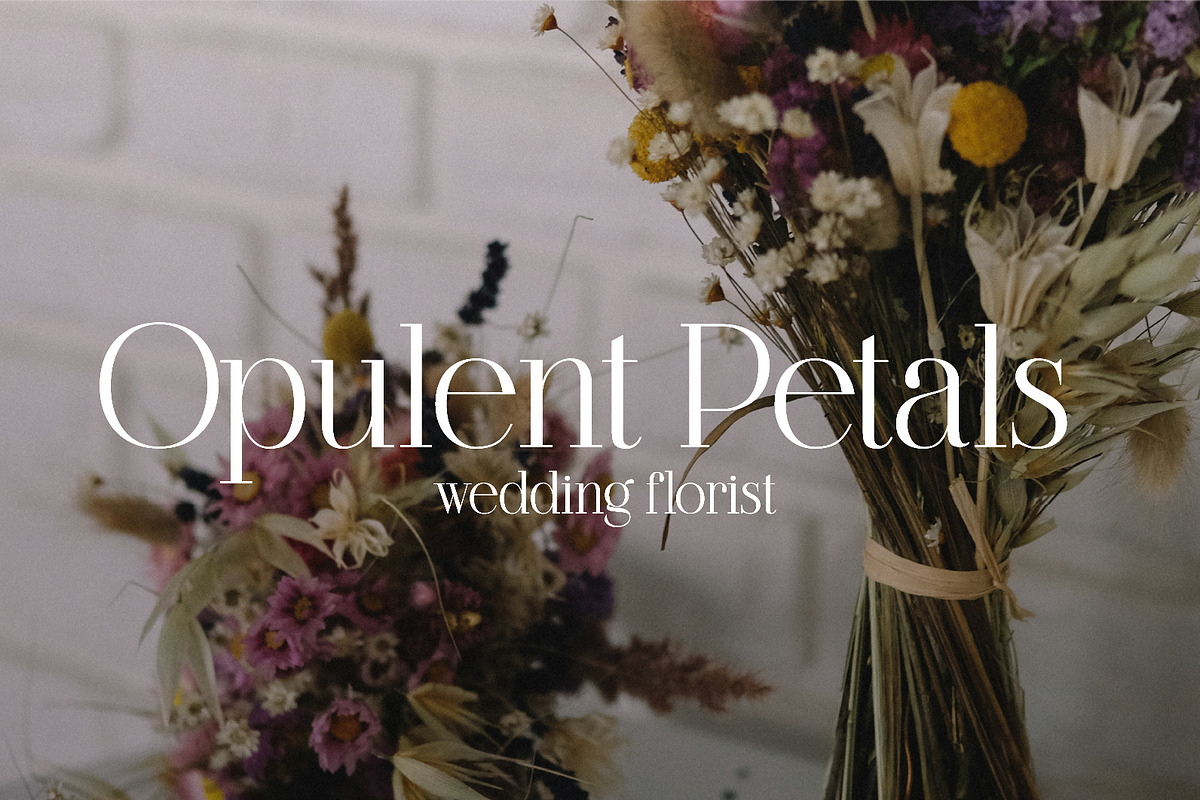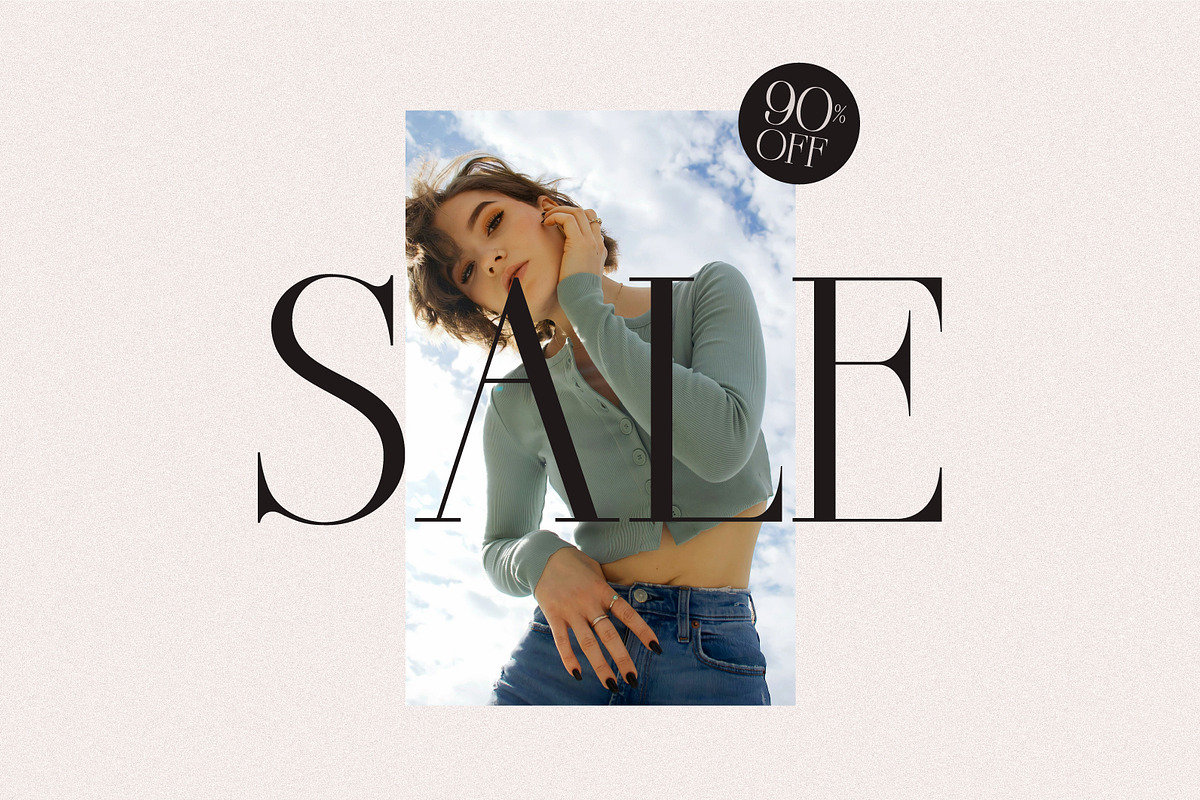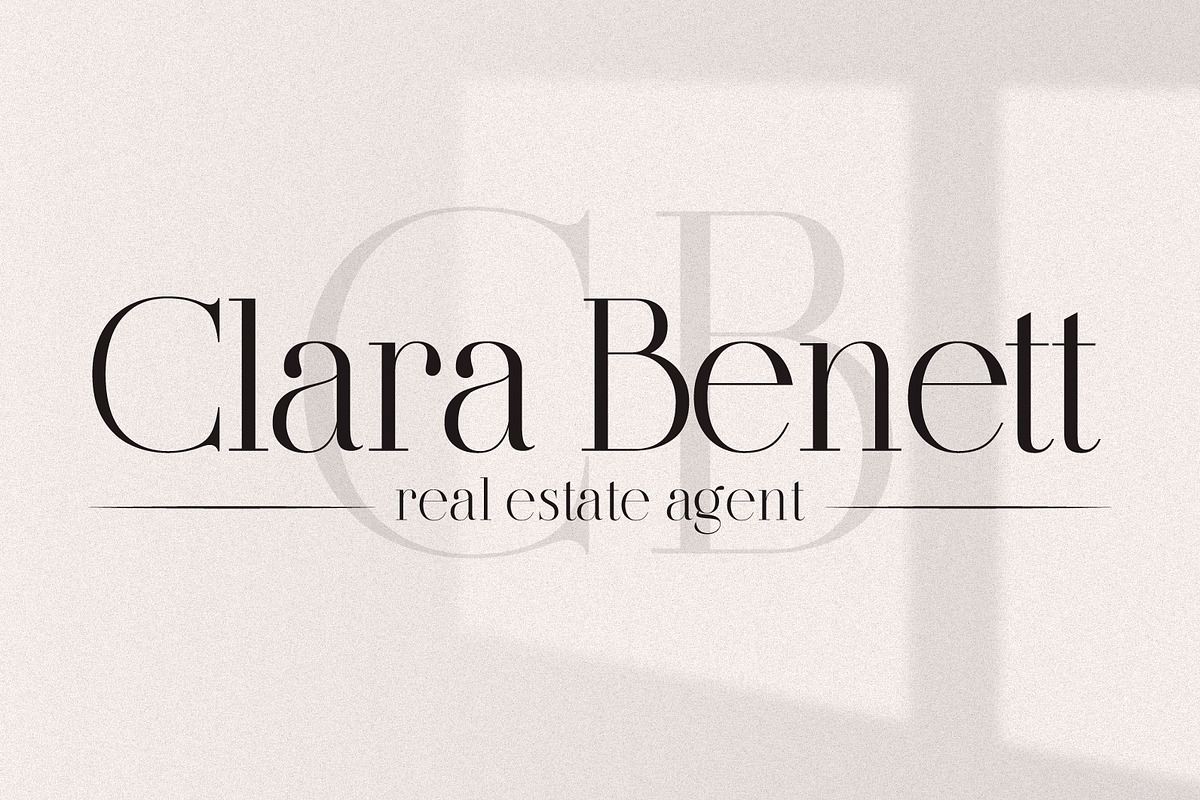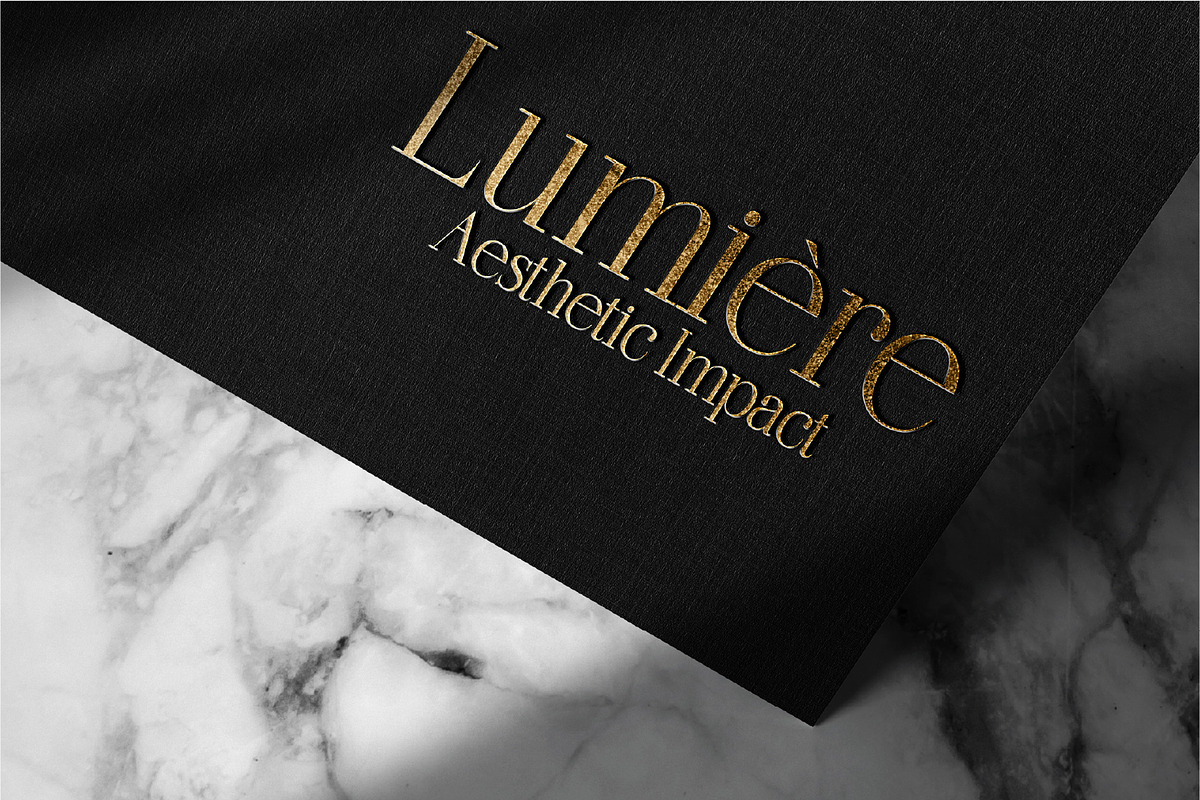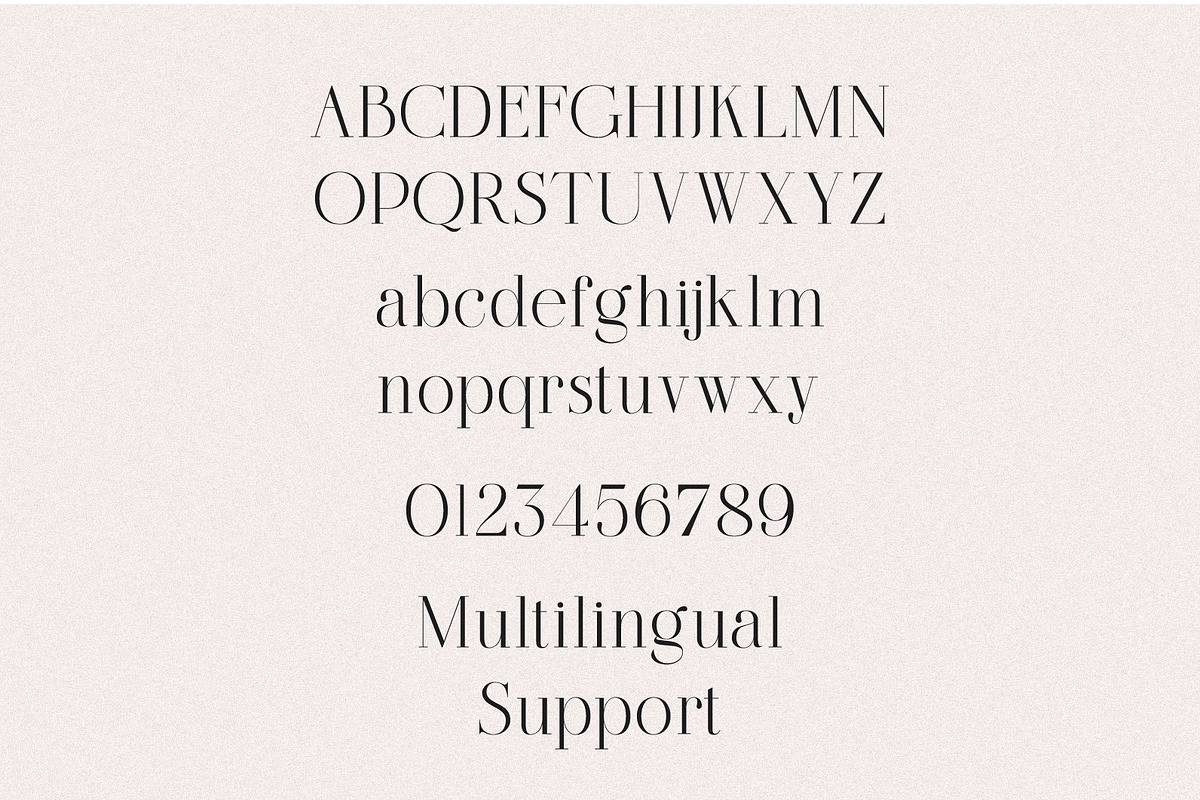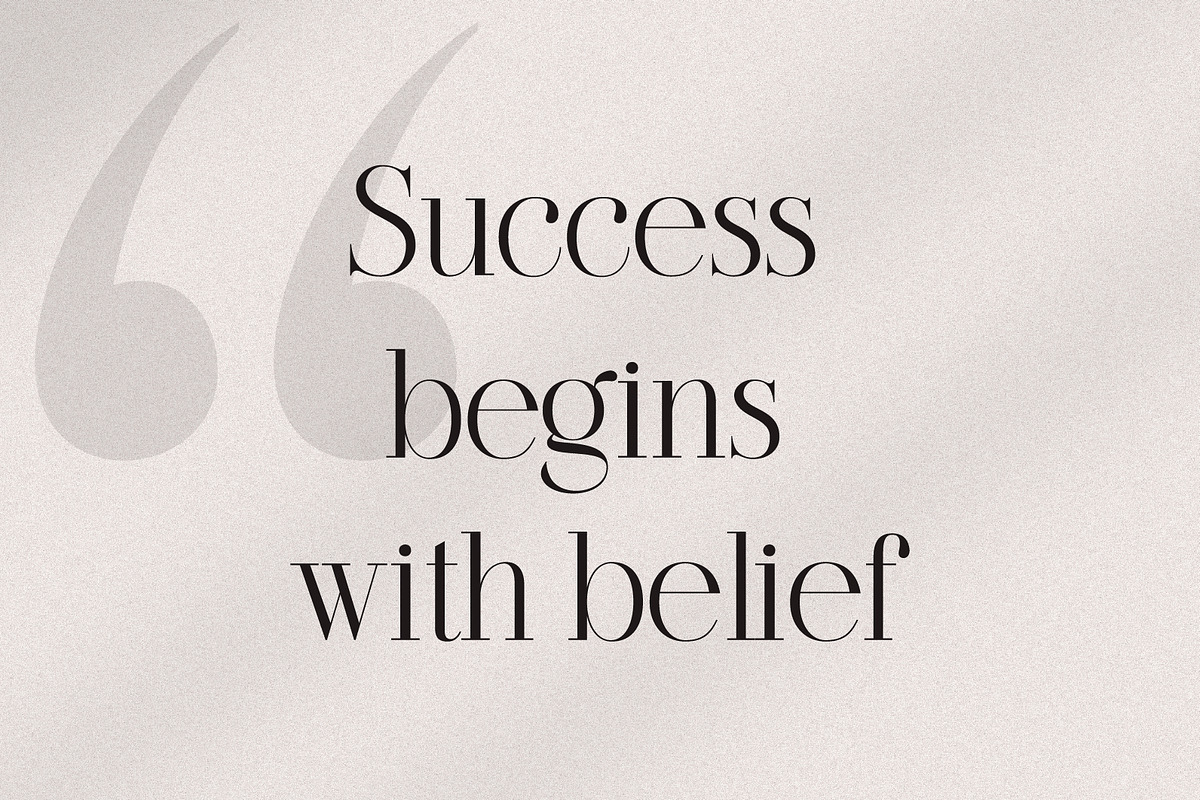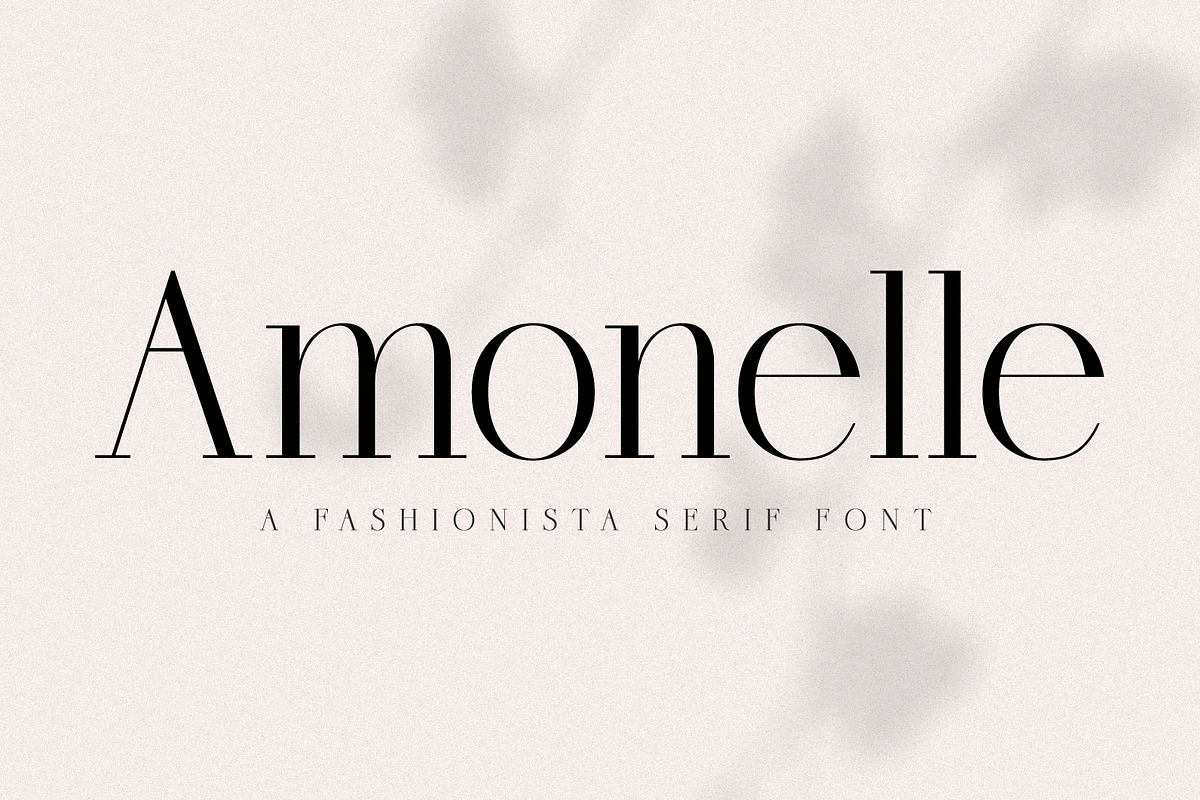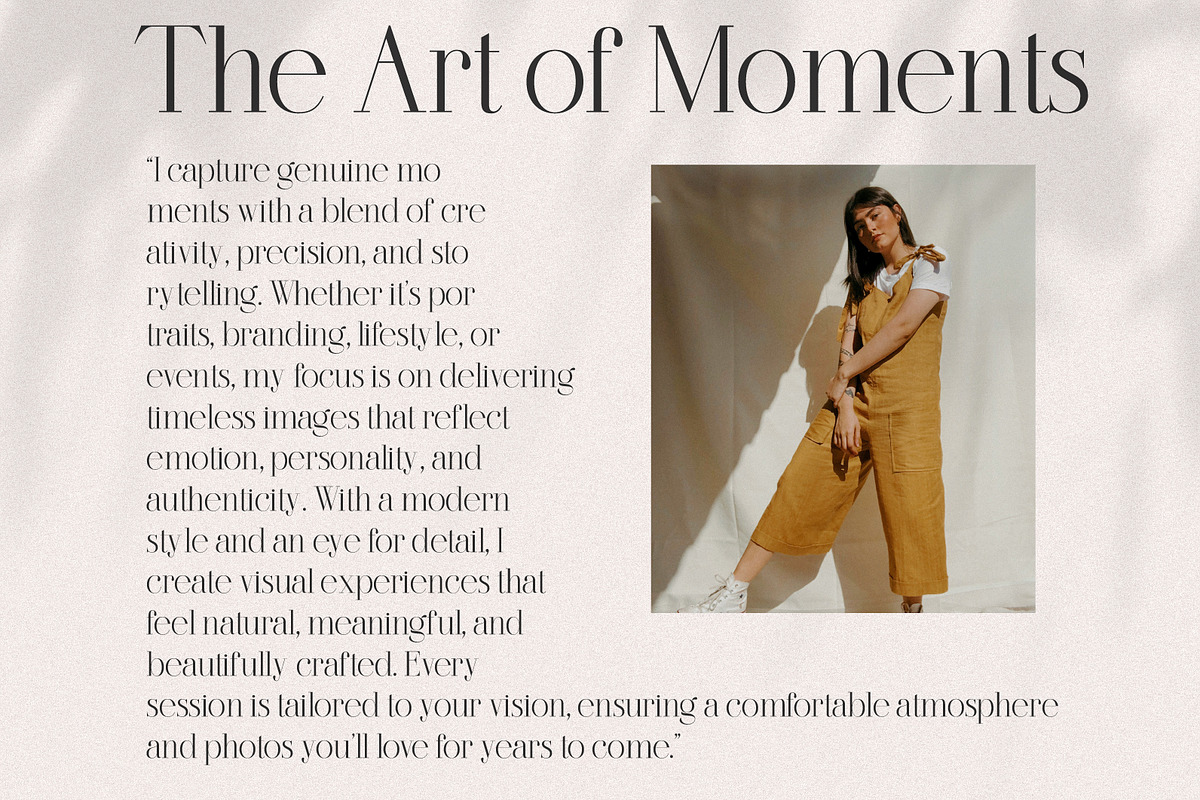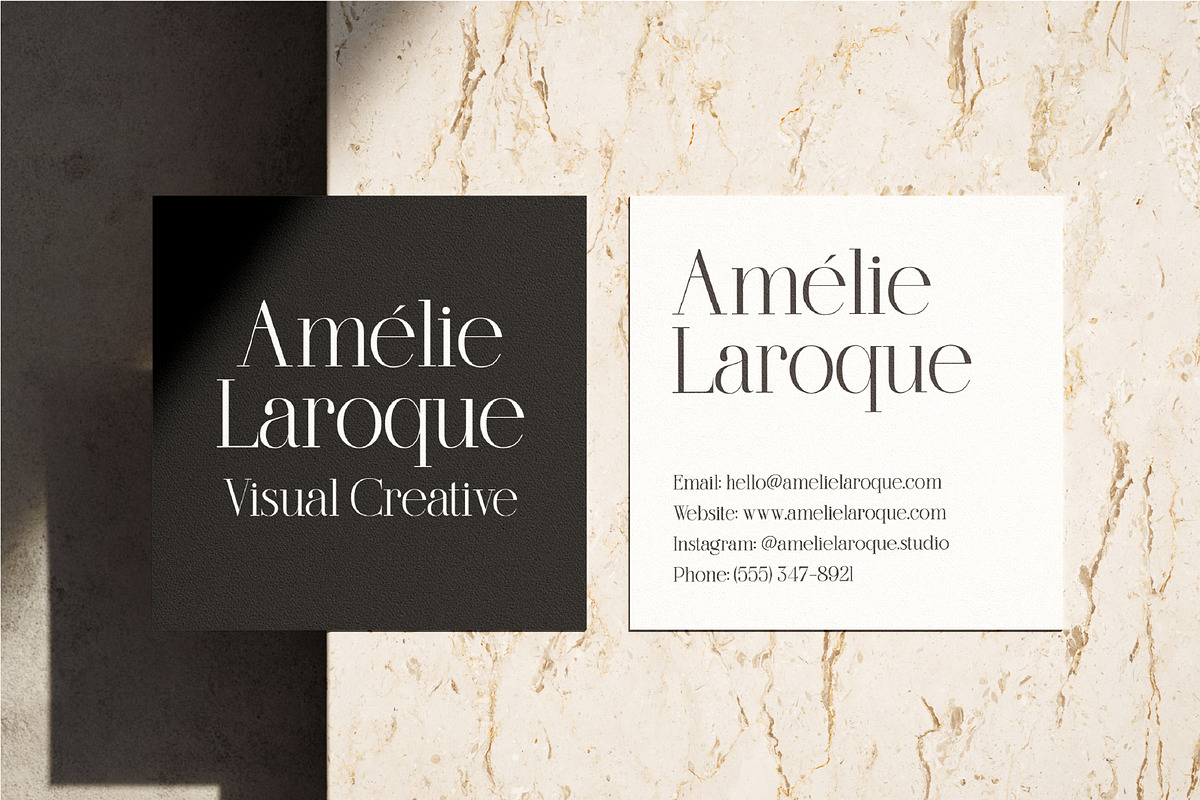
Amonelle Serif
Meet Amonelle, a sleek and sophisticated high-contrast serif inspired by classic Didone style—but crafted with a completely original identity. With its sharp vertical lines, sculpted curves, and luxurious flow, Amonelle delivers a look that is fashion-forward, powerful, and beautifully modern.
Whether you're building a luxury brand, designing editorial layouts, or crafting a clean and timeless identity, Amonelle brings elegance and confidence to every project. 💫
- Numbers, punctuation & symbols
- Multilingual support 🌍 (Western, Central & Eastern European)
- Smooth vector outlines
- Professional kerning & balanced spacing
🌟 Perfect For:
- Luxury branding & logo design ✨
- Real estate agents & realty branding 🏡
- All business identities — modern, clean, high-end 🏢
- Photography studios & photographers 📸
- Fashion & beauty campaigns 👗
- Editorial & magazine layouts 📰
- Elegant packaging & product design 🎁
- Minimalist posters & print work 🖼️
- Social media graphics & content creation 📱
- Website headers, hero sections & landing pages 💻